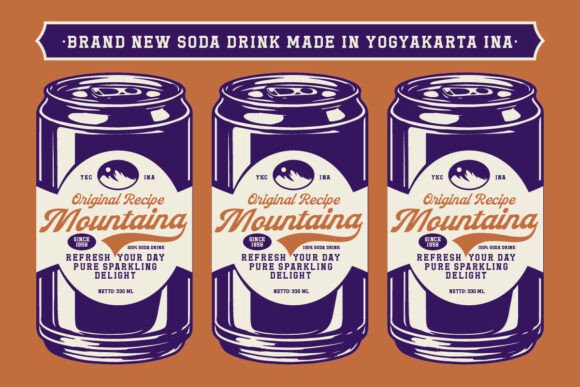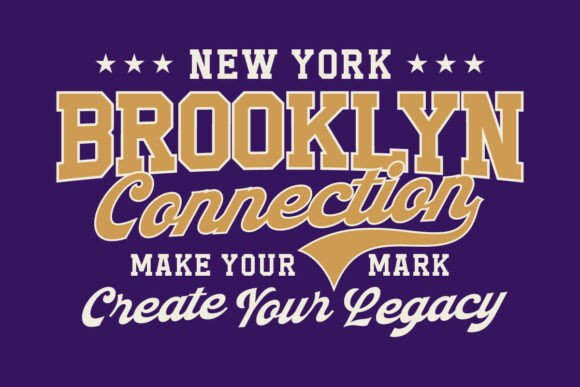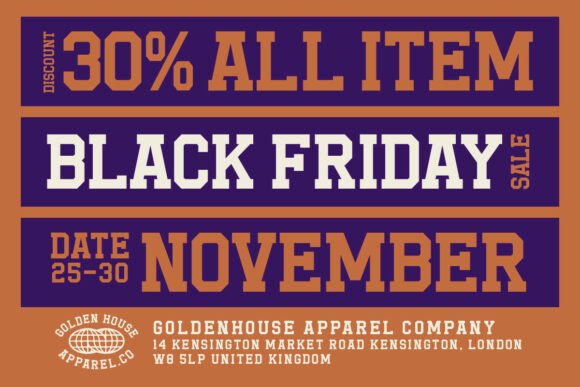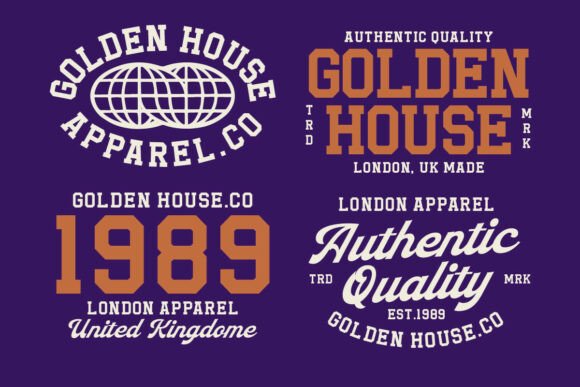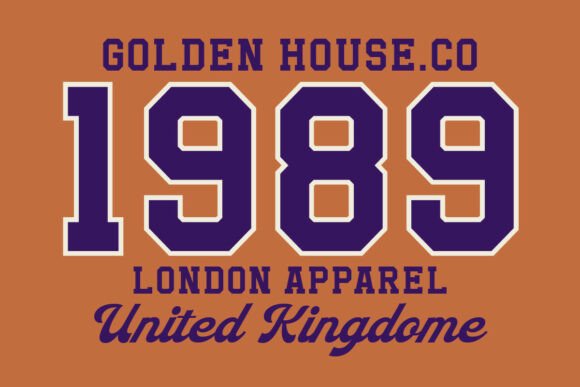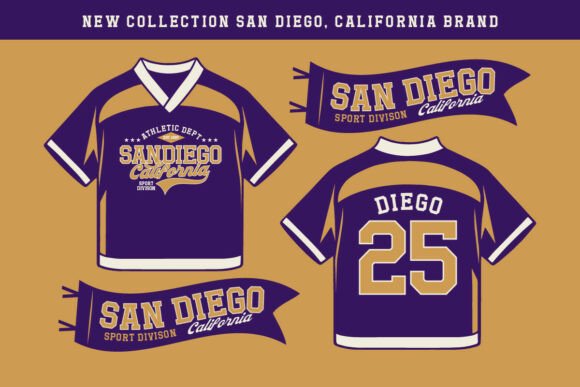
Introduction to Slugger Union Font Font
Fonts play a crucial role in design, and the Slugger Union Font font is a typeface that brings both character and versatility to any project. Whether you’re working on a branding project, a website, or a print design, the Slugger Union Font font offers a unique style that can elevate your work.
Slugger Union brings that bold varsity spirit straight into your design gameβloud, confident, and full of classic team energy.
This font duo blends strong slab-style serif blocks with a smooth, sweeping script, creating a perfect mix of athletic toughness and vintage flair Itβs built for sports branding, retro logos, club badges, posters, and merch-style graphics that want to feel powerful, nostalgic, and full of winning attitude.
Key Features of Slugger Union Font Font
Why Choose Slugger Union Font Font?
The Slugger Union Font font is more than just a typeface β it’s a design tool that helps you communicate your message with style and clarity. Its unique character set and versatile design make it suitable for a wide range of applications, from elegant invitations to bold headlines.
With its carefully crafted letterforms and balanced proportions, the Slugger Union Font font ensures readability and visual appeal across all mediums.
What makes Slugger Union Font font special?
The Slugger Union Font font stands out with its unique design, exceptional readability, and versatility across various design applications.